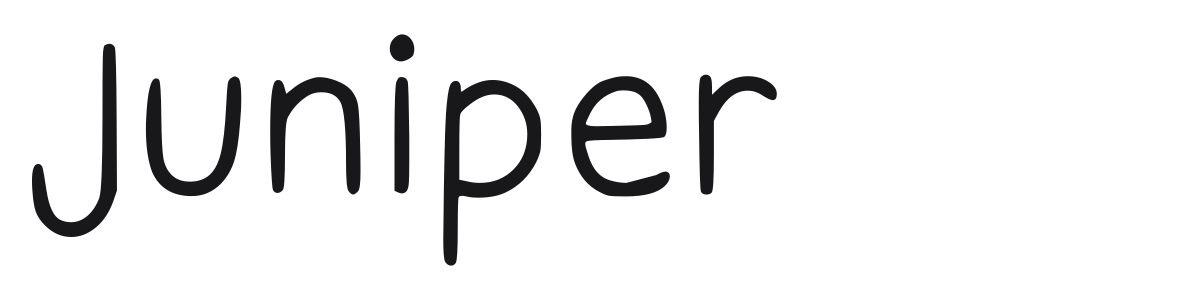
Juniper
by Leo Strong
Juniper is a casual rounded sans-serif with a hand-drawn, organic feel. The slight irregularities in letter spacing and stroke rhythm give it a natural, unpretentious warmth that mechanical fonts can't replicate. It works well anywhere a friendly, informal tone is needed.